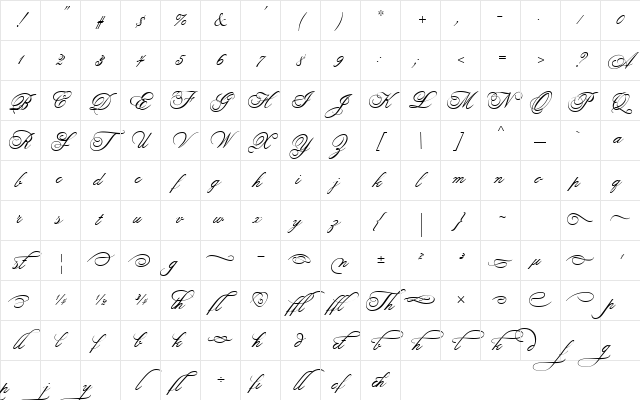
Complete Old Fashion Script Flourishes Regular glyph index. Displaying only characters natively supported by Old Fashion Script Flourishes Regular font.
Old Fashion Script Flourishes flows with the natural rhythm of handwritten lettering, making it ideal for designs that call for warmth and personal expression.
Font Pairing: Combine Old Fashion Script Flourishes with a simple geometric sans for maximum contrast - the tension between flowing curves and clean structure is a classic typographic pairing.
Pro Tip: Use Old Fashion Script Flourishes for short runs of text - names, titles, or taglines. Extended body copy in script faces tires the eye quickly.